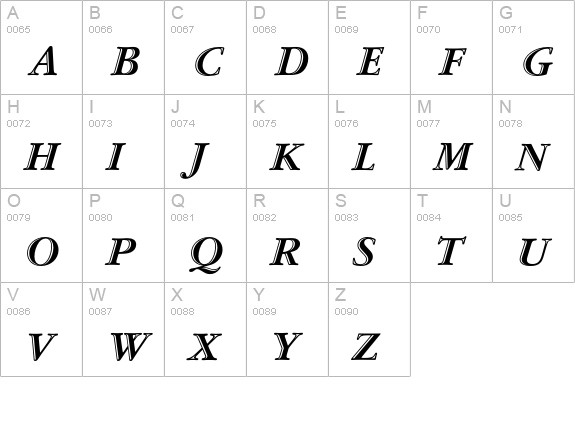
GaramondHandtEF-BoldItalic font is a stunning and elegant typeface that exudes sophistication and professionalism. Its bold and italic design adds a touch of flair to any project, making it perfect for headlines, titles, and other prominent text. The timeless Garamond style combined with the boldness and slant of the italic variation creates a harmonious balance between classic and modern aesthetics. What sets GaramondHandtEF-BoldItalic font apart is that it is not only visually appealing but also versatile in its applications. Whether used in print or digital media, this font commands attention and conveys a sense of refinement. Its readability and legibility make it ideal for a wide range of design projects, from branding and marketing materials to editorial layouts and signage. The best part? GaramondHandtEF-BoldItalic font is available for free download at FontsMarket.com. You can easily access this exquisite typeface and enhance your designs with its professional and polished appearance. Don't miss out on the opportunity to elevate your projects with the timeless beauty of GaramondHandtEF-BoldItalic font.